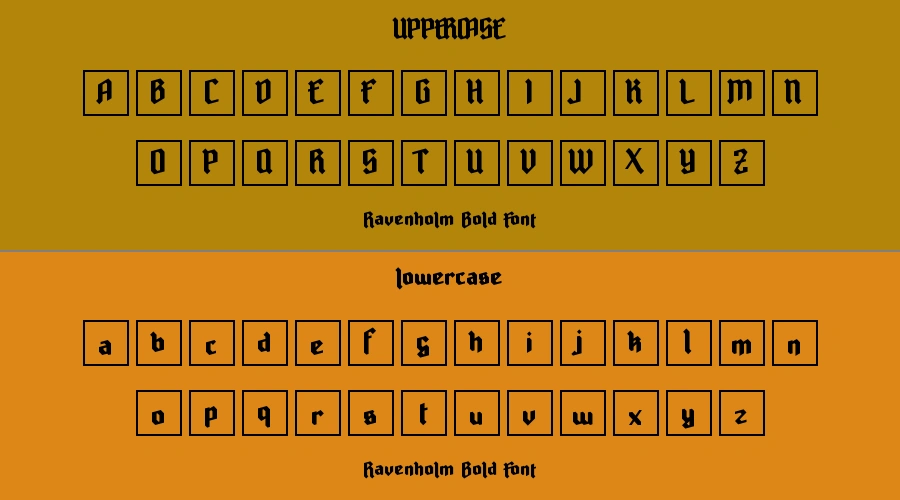
About Ravenholm Bold Font
Designed with precision, Ravenholm Bold Font merges expressive energy with precision in every character. This versatility makes it particularly effective for financial reports, where precision and brand power directly impact communication quality. Each letterform demonstrates meticulous craftsmanship.
Technical excellence shines through elements like rectangular counters and period ligatures, enhancing typographic versatility. In research articles settings, Ravenholm Bold Font proves its worth through superior small cap rendering. The thoughtful execution of proportion and consumer perception ensures professional results.
Ravenholm Bold Font |